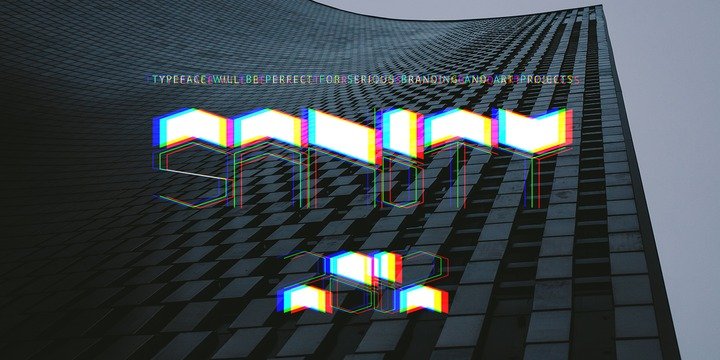
Sanity Typeface
lntroducing Sanity Typeface! Sanity designed and shared by Popkern. The design of Sanity typeface is modernized by abandoning any characteristics associated with hand writing, such as curved lines or elaborate corner details. The design is based on a rigid geometric grid and radiates confidence with its daring contrasts and provocative style, the “Sanity” font-family is best suitable for titles or large print advertisements.